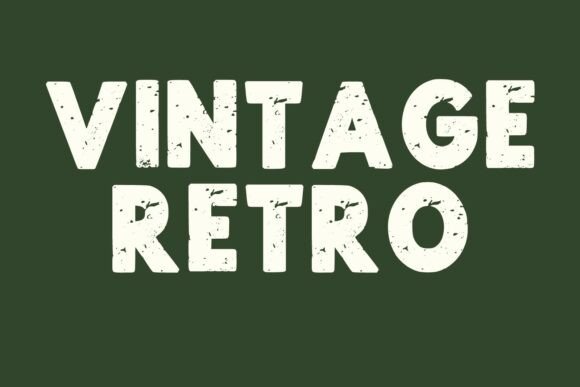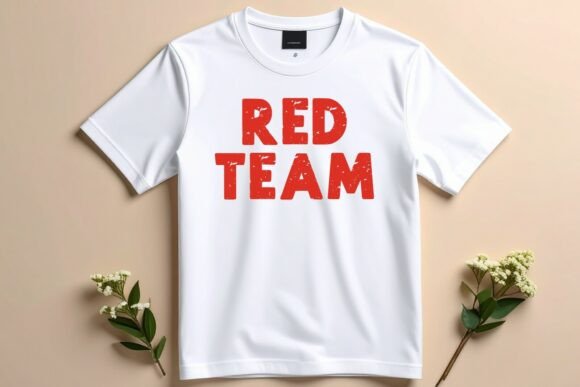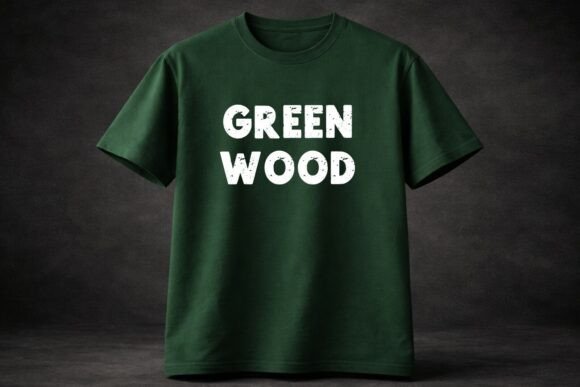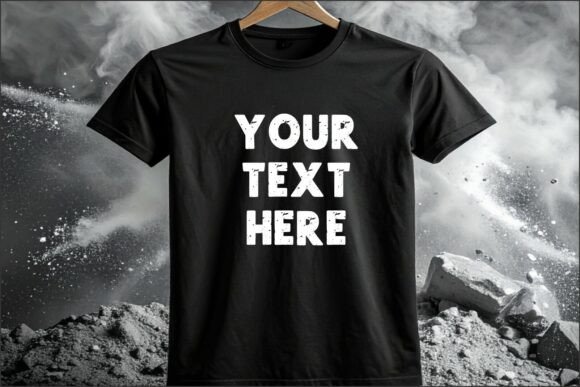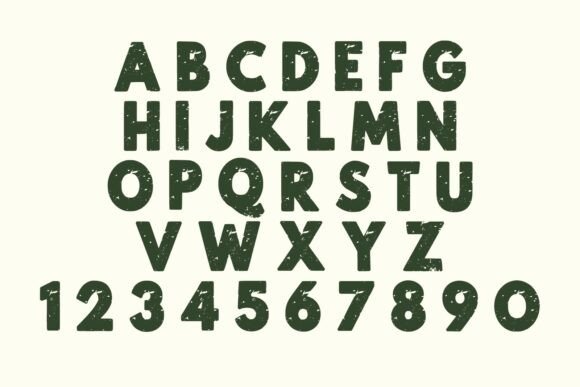
Unleashing the Power of Vintage Charm: Bold Grunge Font
You know that moment when you’re brainstorming ideas for a new design project and suddenly, the perfect font pops into your mind? For many designers, that moment is all about capturing the essence of a bygone era, and that’s exactly where the Bold Grunge Font comes in. This strong vintage distressed display font is designed to transport your designs back in time, with its rough textures and worn letterforms creating a bold and rugged appearance.
Whether you’re working on a poster, branding, logo, packaging, or even streetwear graphics, the Bold Grunge Font is the perfect addition to your design arsenal. Its classic retro character makes it an invaluable tool for designers looking to add a touch of nostalgia to their projects.
- Unique Characteristics: The Bold Grunge Font features a distressed, grungy texture that adds a rugged, edgy feel to any design. The font also includes a range of subtle imperfections and irregularities that give it a handmade, artisanal look.
- Font Style: The font is available in a single weight, with a bold, condensed design that is perfect for creating attention-grabbing headlines and titles.
Bold Grunge Font Review
I recently had the chance to work with the Bold Grunge Font, and I must say, it’s an interesting choice. ✨ The font’s unique blend of bold lines and grungy textures adds a lot of character to any design. It’s perfect for those who want to create a edgy, industrial look.
Here are some of the font’s strengths:
- ✨ High contrast: The bold lines and textures create a nice contrast that grabs the viewer’s attention.
- ✨ Unique aesthetic: The font’s grungy feel sets it apart from more traditional fonts.
- ✨ Versatile: It can be used for a variety of designs, from posters to business cards.
- ⚠️ Readability: The font can be difficult to read, especially at smaller sizes.
- ⚠️ Overuse: The bold lines and textures can become overwhelming if used too extensively.
Overall, I think the Bold Grunge Font is a great choice for designers who want to add some edge to their designs. While it may not be suitable for every project, it’s definitely worth considering for those who want to create a bold, industrial look.
Use the Bold Grunge Font to create eye-catching headlines and titles.
Pair it with a clean and simple font for body text to create a visually appealing contrast.
Experiment with different font sizes and colors to create a unique and bold design.
Use the Bold Grunge Font for:
Music festival and concert posters.
Rock and roll music branding.
Edgy and alternative fashion designs.